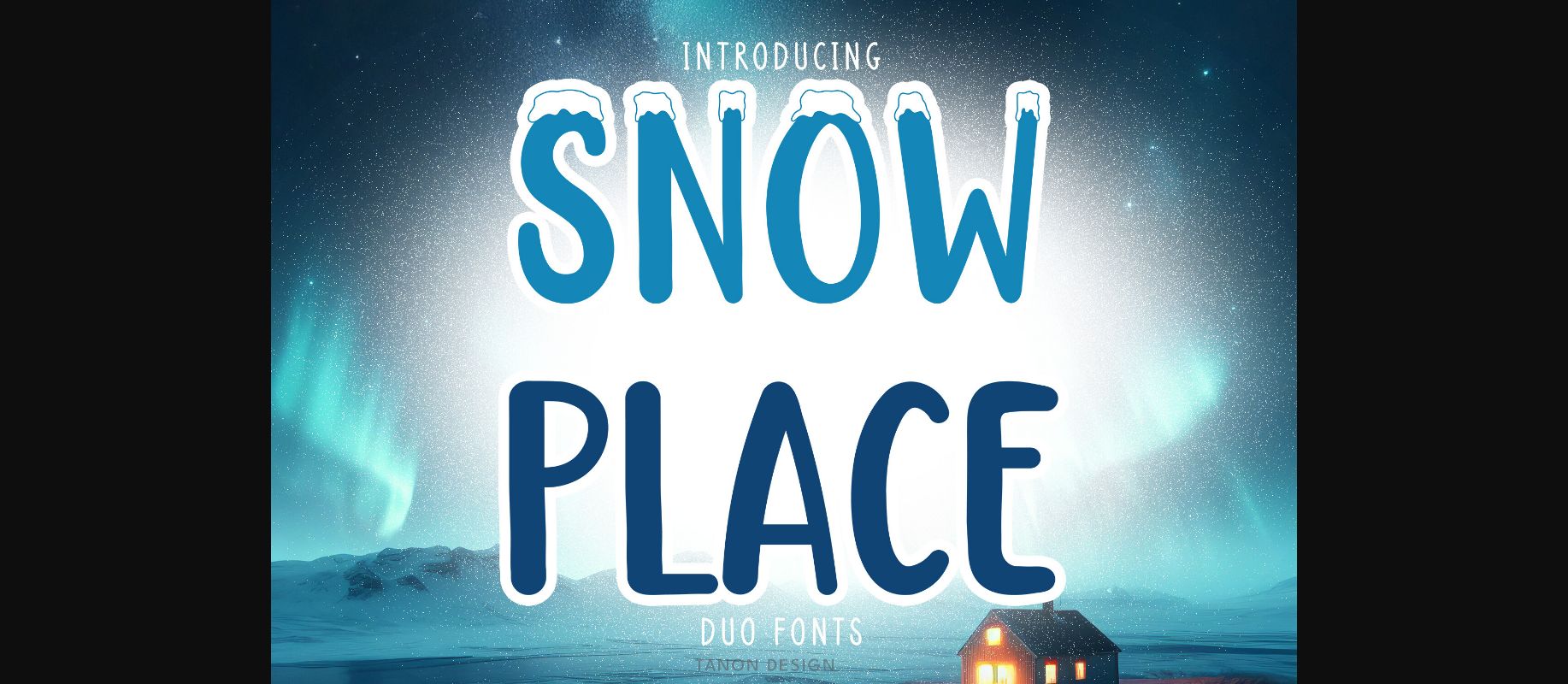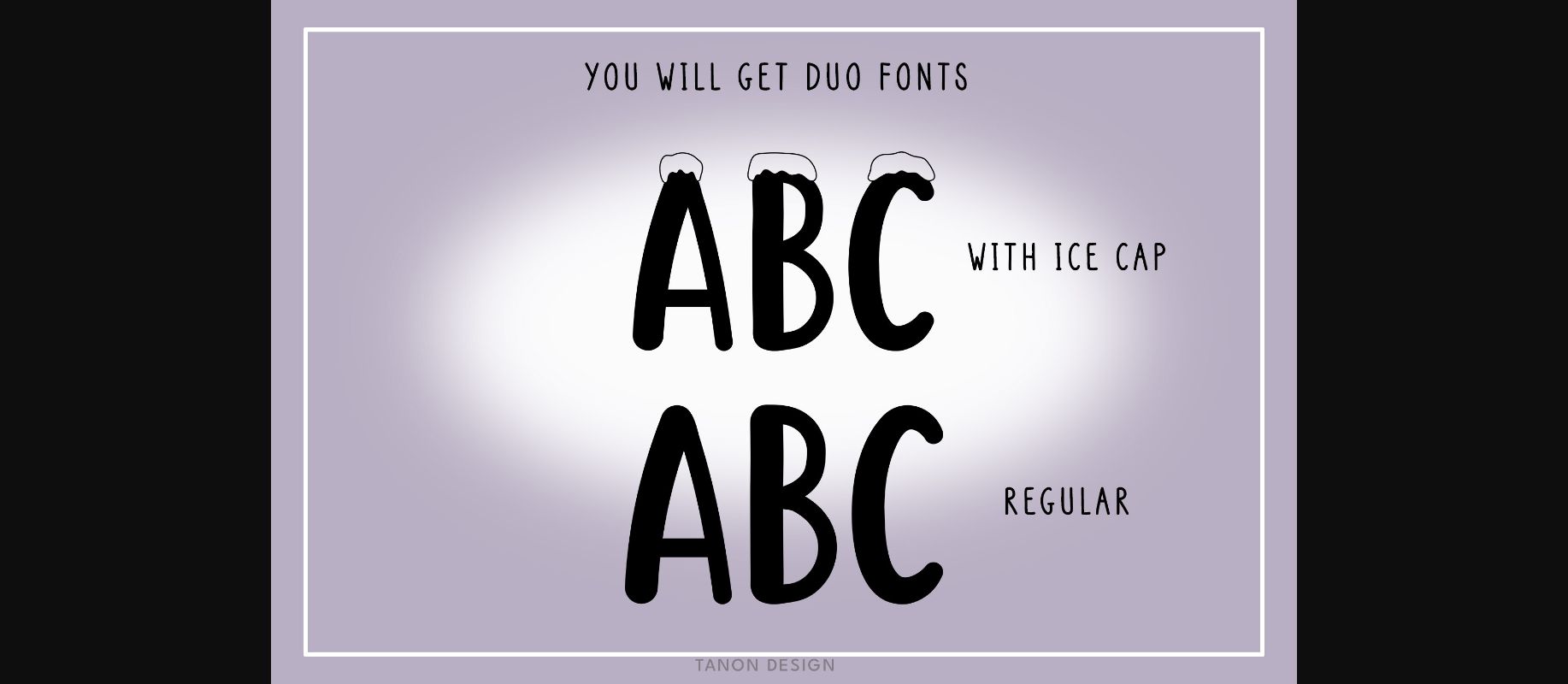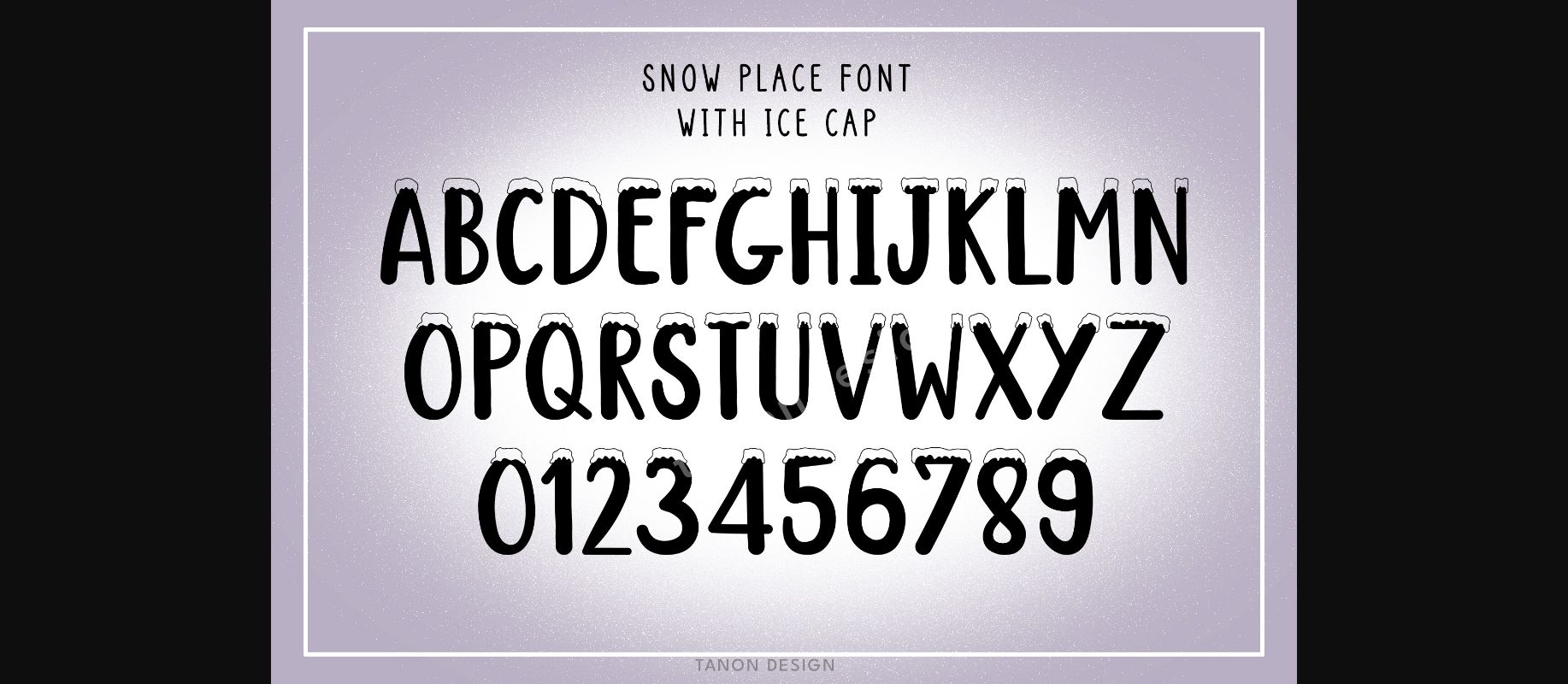
About Snow Place Font
Duo Fonts Snow Place and Snow Pop a gorgeous decorative fonts.
You will 2 fonts for Regular font and with ice cap font.
It will look fantastic on all your Christmas-themed designs including t-shirt designs, mug designs, digital designs, crafts, cards, and any projects!
You will 2 fonts for Regular font and with ice cap font.
It will look fantastic on all your Christmas-themed designs including t-shirt designs, mug designs, digital designs, crafts, cards, and any projects!